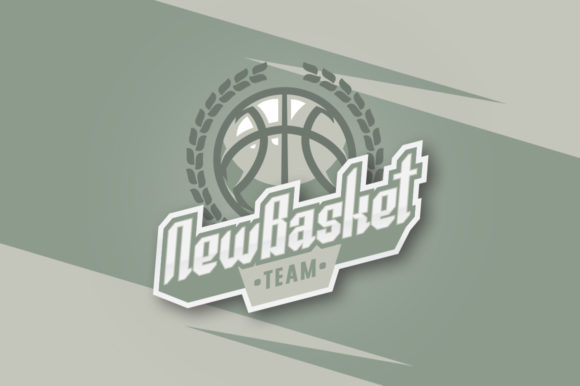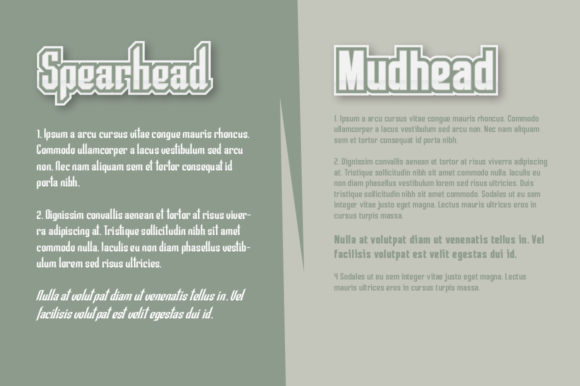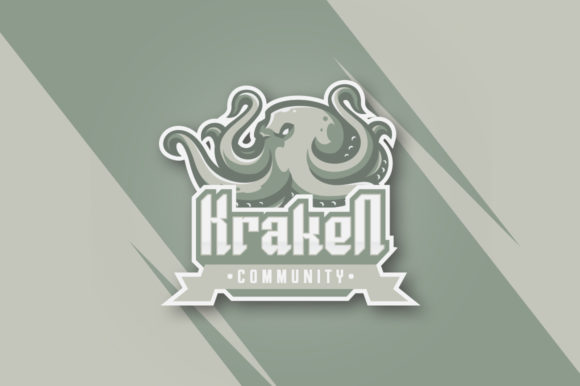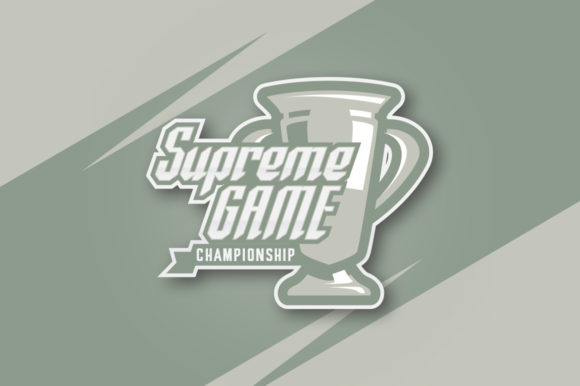
Introducing ESports Family Font: The Ultimate Display Font for Gamers
Are you a gamer, designer, or crafter looking for a font that embodies the competitive spirit of the gaming world? Look no further than ESports Family Font, a versatile display font designed specifically for gamers. With its sleek and modern design, ESports Family Font is perfect for creating stunning visuals that capture the essence of the gaming universe.
What is ESports Family Font?
ESports Family Font is a display font that comes in several styles, offering a range of options for designers and crafters. This font is carefully crafted to reflect the dynamic and competitive nature of the gaming world. Whether you’re creating a logo, poster, or social media graphic, ESports Family Font is the perfect choice for adding a touch of gaming flair to your designs.
Key Features of ESports Family Font
- Multiple Styles: ESports Family Font comes in several styles, allowing you to experiment with different looks and feels to find the perfect fit for your design.
- Competitive Style: Inspired by the fast-paced and competitive world of gaming, ESports Family Font exudes a sense of energy and dynamism.
- Display Font: Designed specifically for display purposes, ESports Family Font is perfect for headlines, titles, and other prominent text elements.
- Gaming Theme: With its gaming-inspired design, ESports Family Font is ideal for creating graphics, logos, and other visual elements that resonate with gamers.
Why Choose ESports Family Font?
So, why should you choose ESports Family Font for your design projects? Here are just a few reasons:
- Uniqueness: ESports Family Font offers a unique and distinctive look that sets it apart from other fonts.
- Versatility: With multiple styles to choose from, ESports Family Font can be used for a wide range of design projects, from logos and posters to social media graphics and more.
- Themed: ESports Family Font is carefully crafted to reflect the gaming theme, making it perfect for designers and crafters who want to create gaming-inspired visuals.
Design Inspiration with ESports Family Font
ESports Family Font is perfect for a wide range of design projects, including:
- Logos: Create a stunning logo for your gaming team or brand with ESports Family Font.
- Posters: Design eye-catching posters for gaming events or tournaments using ESports Family Font.
- Social Media Graphics: Add a touch of gaming flair to your social media graphics with ESports Family Font.
In conclusion, ESports Family Font is a versatile and stylish display font that’s perfect for gamers, designers, and crafters. With its competitive style and multiple font styles, ESports Family Font is ideal for creating stunning visuals that capture the essence of the gaming universe. So why wait? Get inspired by ESports Family Font today and take your designs to the next level!